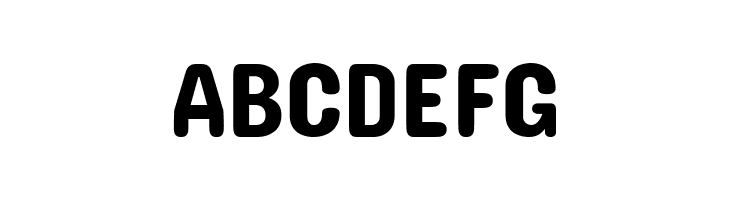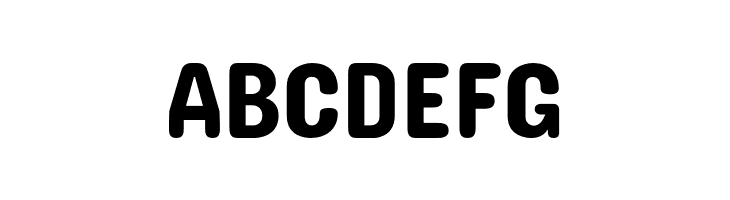
• Concert One
A bold, rounded font with a modern and playful style.
• ConcertOne-Regular
A bold, rounded font with a friendly and modern appearance.
• Concert One
A bold, rounded font with a playful and approachable style.